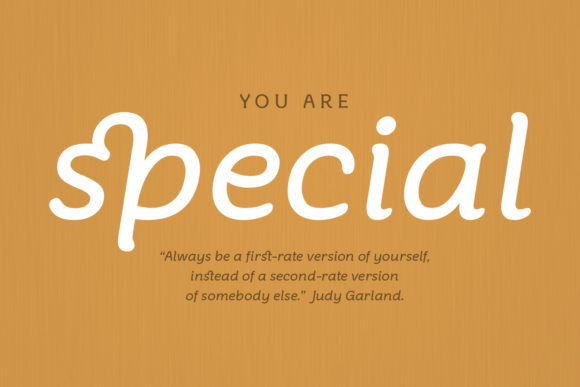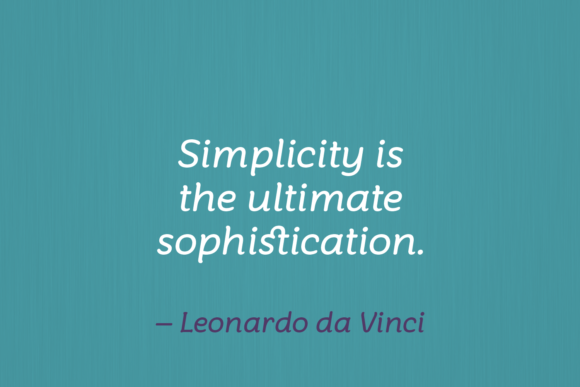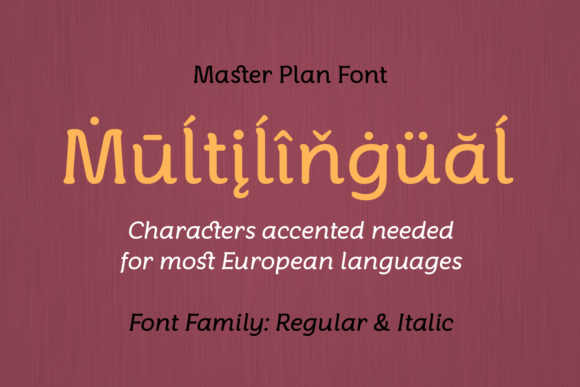
Introduction to Master Plan Font
Have you ever stared at a blank canvas, waiting for inspiration to strike? You’ve got a creative project in mind, but the right design element is missing to bring it to life. That’s where the Master Plan Font comes in – a game-changing serif font that combines playfulness and solemnity in perfect harmony.
As a valuable resource for designers, Master Plan Font is more than just a pretty face. Its unique blend of whimsy and sophistication makes it the perfect addition to any creative project, from branding to editorial design. Whether you’re working on a high-quality magazine or a fun website, Master Plan Font is sure to elevate your design and make it stand out.
Honest Review: Master Plan Font
As a designer, I’m always on the lookout for high-quality design resources that can elevate my creative projects. Recently, I had the chance to work with the Master Plan Font, and I must say, it’s a solid addition to any design arsenal.
- ✨ High-quality typography: The font is clean, modern, and extremely versatile, making it perfect for a wide range of creative projects.
- ⚠️ Limited character set: While the font is extensive, it’s not as comprehensive as some other options on the market.
- ⚠️ Not suitable for complex projects: Due to its clean design, it may not be the best choice for projects that require a lot of intricate details.
Overall, I’m impressed with the Master Plan Font. It’s a solid choice for designers looking for a high-quality, free design resource that can elevate their creative projects.
Designing with Master Plan Font
Master Plan Font is a versatile design resource ideal for creative projects that require a unique and high-quality font. This font is perfect for designers who need a reliable design element that can be easily integrated into various design tools.
Tips for Getting the Most Out of Master Plan Font
To get the most out of Master Plan Font, use it on a transparent background to create a clean and modern design. You can also experiment with different font sizes and colors to create a unique visual effect.
Common Use Cases for Master Plan Font
Master Plan Font is commonly used in business presentations, marketing materials, and creative projects that require a professional and modern design. It’s also a great option for designers who need a high-quality font with a transparent background.